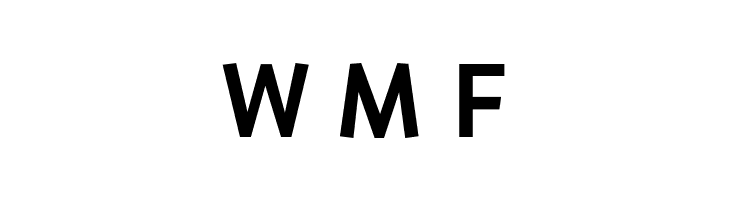
A bold, textured, hand-drawn font with a playful and casual style.
A modern sans-serif font with clean lines and a minimalist design.
A textured, chalk-like font with a playful, hand-drawn style.
A playful, hand-drawn font with rounded edges and consistent spacing.
A bold, distressed font with a rugged, chaotic appearance.
A bold, impactful font with thick, uniform strokes for a strong presence.
A bold, robust font with thick strokes and a strong presence.
A bold, distressed font with a grunge texture and rugged appearance.
A decorative font with jungle-inspired, vine-like embellishments.
A bold, decorative font with a vintage circus-inspired dotted outline.
A bold, distressed font with a vintage letterpress style.
A bold, distressed font with a dripping effect, perfect for horror themes.
A bold, brush-style font with a hand-painted appearance.
A bold, distressed font with a grunge, punk aesthetic.
A bold, distressed font with a punk rock, hand-painted style.
A modern, bold, and slightly slanted font with a geometric structure.
A bold, distressed font with a rugged, grunge aesthetic.
A playful, snow-themed font with bold, outlined characters.
A bold, decorative font with a grunge texture and vintage appeal.
A bold, outlined font with a strong, three-dimensional appearance.
A rugged, distressed font with a vintage, typewriter-like appearance.
A bold, distressed font with a grunge texture, ideal for edgy designs.
A bold, blocky font with a modern and assertive style.
A bold, patriotic font with stars and a stencil-like design.
A bold, italic stencil-style font with sharp, angular cuts.
A bold, patriotic font with stars and stripes, ideal for thematic designs.
A bold, geometric font with a strong, impactful design and italic style.
A bold, star-studded font with a patriotic, stencil-like design.
A playful, hand-drawn font with rounded edges and a friendly style.
A bold, distressed font with a vintage, hand-crafted appearance.
A bold, distressed font with a grunge, textured style.